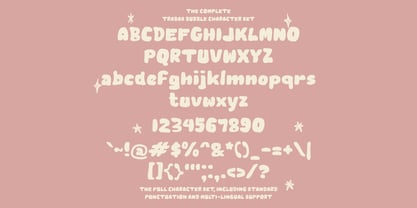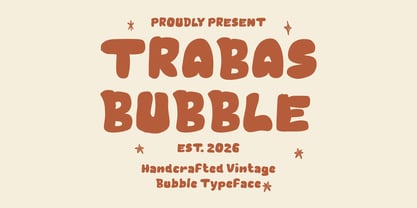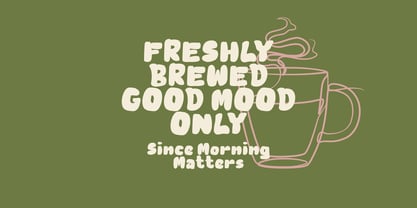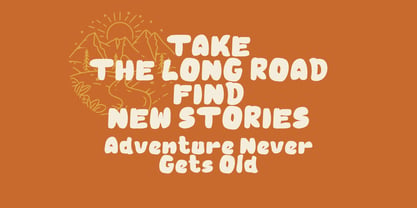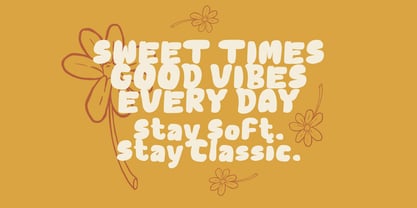
Trabas Bubble
by Mei Suseno
Trabas Bubble is a bold, playful, and nostalgic display font inspired by the groovy aesthetics of the 70s and vintage bubble lettering. Featuring chunky curves, soft edges, and handcrafted character shapes, this typeface brings warmth, personality, and retro charm to every design.
Perfect for branding, logos, packaging, posters, merchandise, children's products, social media graphics, stickers, apparel, and creative projects that need a fun and eye-catching look. Trabas Bubble captures the spirit of classic vintage typography while remaining fresh, versatile, and easy to use.
Whether you're creating a retro-inspired brand or adding a cheerful touch to your designs, Trabas Bubble delivers bold visual impact with a friendly handmade feel